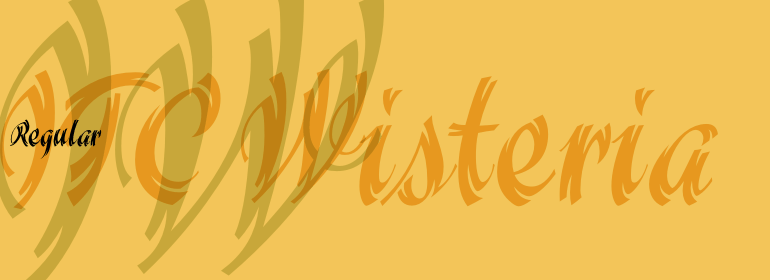
ITC Wisteria™
Wisteria was designed by Michael Stacey and appeared in the ITC library in 1995. It is a robust script font with doubled strokes which look as though they were written with a broad split pen tip. The figures are both energetic and rich in contrast. Such typefaces became popular in the 1930s and were distinguished by the informal sketchiness atypical of calligraphic alphabets. Wisteria has both the grace of a calligraphy font as well as the brusqueness caused by its sharp-edged stroke endings. This contrast makes the overall image interesting and lively. Wisteria is best used for headlines and short texts in point sizes of 14 and larger.